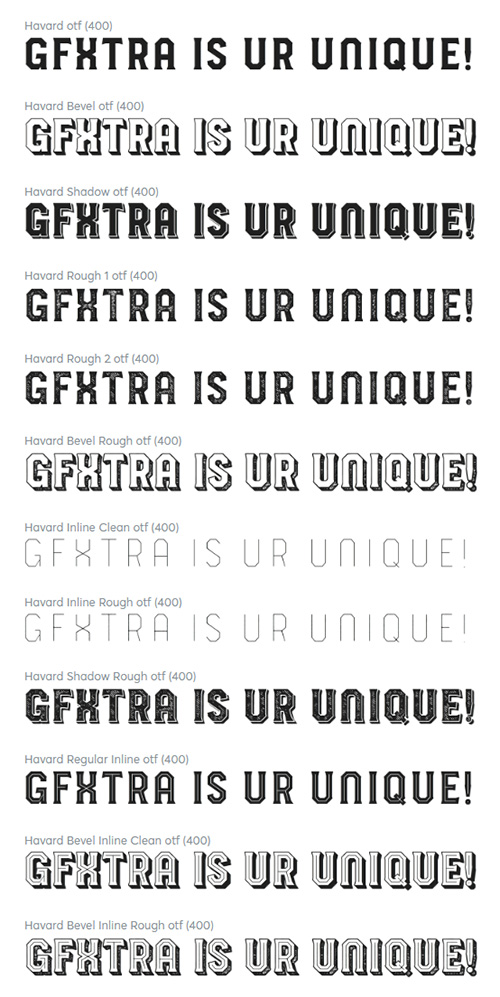
CM - HAVARD DISPLAY - SQUARED & LAYERED 4000742
- Started with a base of geometric shape, Havard is a Strong and Sturdy for a display fonts with a feels of industrial, college style, vintage look, sporty and athletic theme.
- Best use for this fonts are for headlines, display, logotype, clothing, or any short text. Havard includes 12 Style version, started with a regular, regular with inline, shadow, bevel. All of the style also have rough version. Since some of them are connected you can mix and match to use it for a layered fonts, just combine what you like as I created on a design sample above.